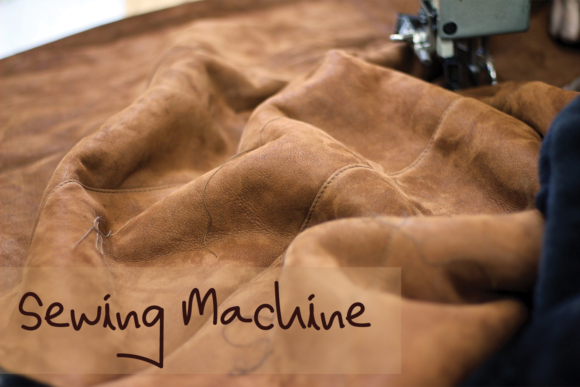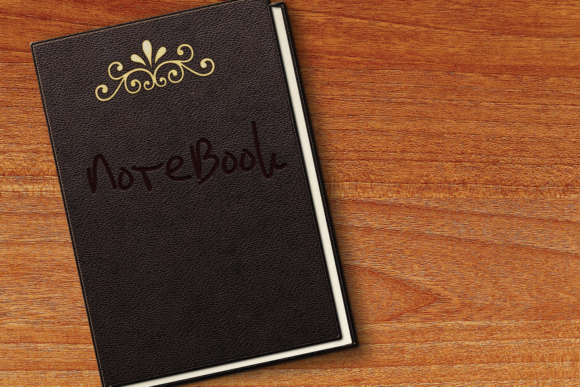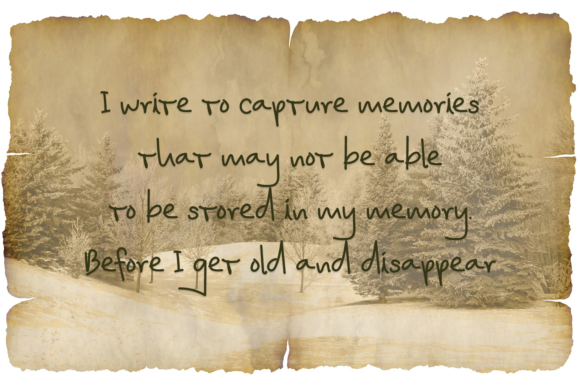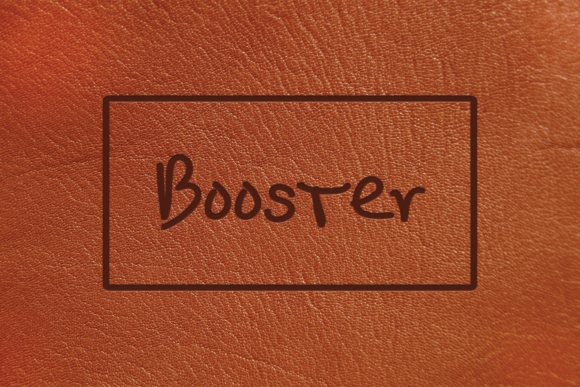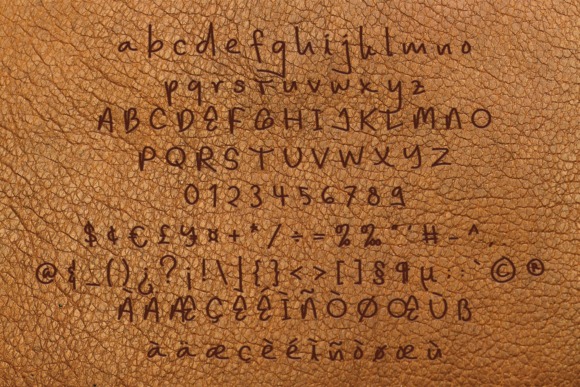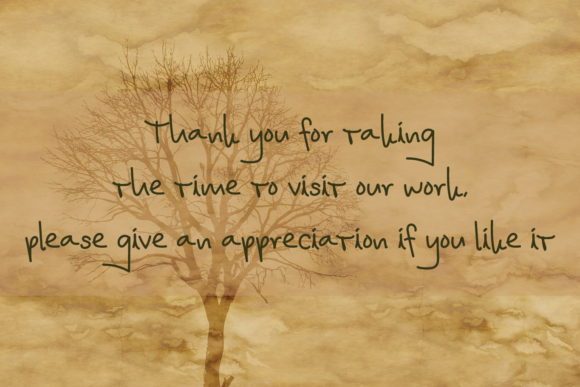
The RightPath Font
About The RightPath Font
The RightPath is a cute and simple lettered handwritten font. It can be used for all chalkboard quotes or teaching material! Its authentic look will add a personal and realistic feel to your designs.